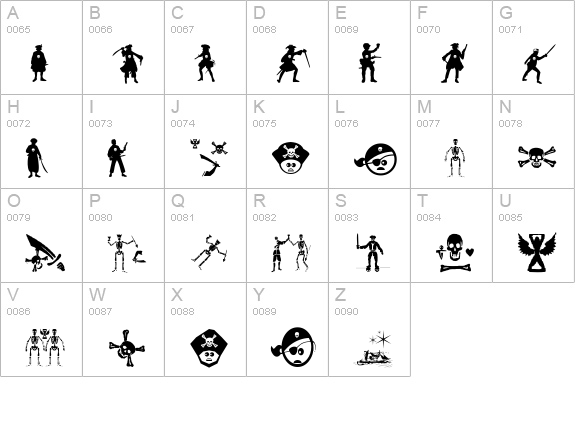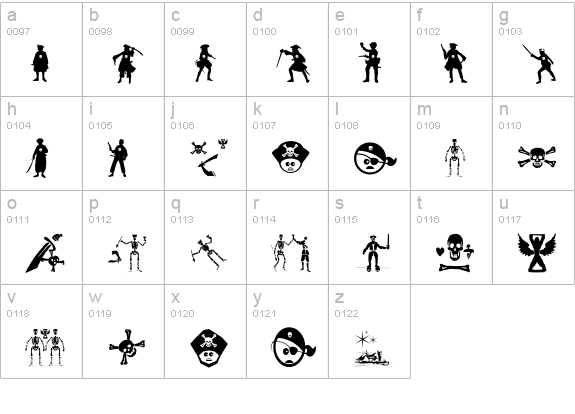
PiratesThree Font Details
Introducing PiratesThree, the perfect font for those who want to embark on a typographic adventure! This font is bold, daring, and full of character, just like the legendary pirates of old. With its rugged and weathered appearance, PiratesThree captures the essence of the high seas and the thrill of treasure hunting. What makes PiratesThree even more exciting is that it is absolutely free! Yes, you heard it right - this captivating font can be easily downloaded at FontsMarket.com, where you can explore a vast collection of exceptional fonts. Whether you're a designer in search of a unique display font or a writer looking to add a touch of adventure to your words, PiratesThree is the perfect choice. With its intricate details and carefully crafted letterforms, PiratesThree is sure to make a lasting impression on any project. Its versatile nature allows it to be used for a variety of design purposes, from logos and headlines to posters and packaging. The font's distinctive style instantly transports you to a world of swashbuckling pirates, hidden treasures, and thrilling escapades. Whether you're designing for a pirate-themed event, creating a captivating book cover, or simply adding a touch of excitement to your personal projects, PiratesThree is your go-to font. Its bold and dynamic presence commands attention and adds a touch of adventure to any design. So, don't miss out on the opportunity to add this remarkable font to your collection. Download PiratesThree for free at FontsMarket.com and set sail on a typographic voyage unlike any other. Let PiratesThree be your trusty companion as you explore the vast seas of creativity and unleash your imagination. Are you ready to embrace the pirate spirit?